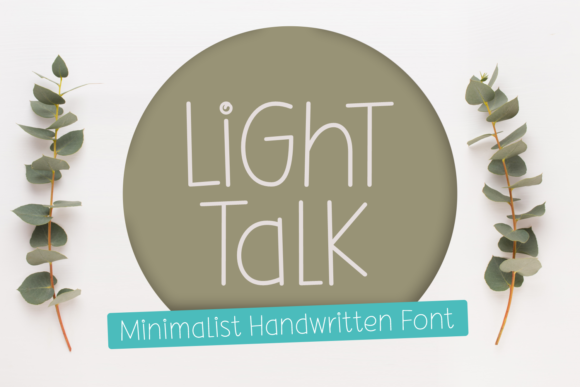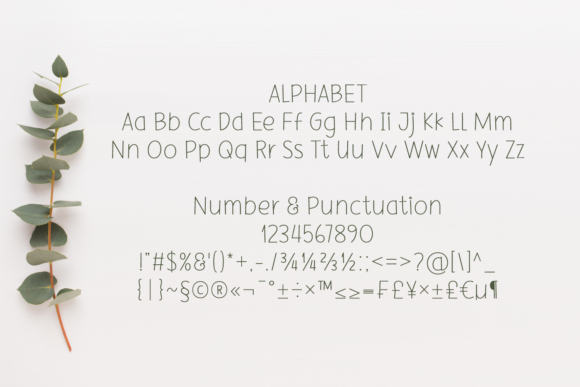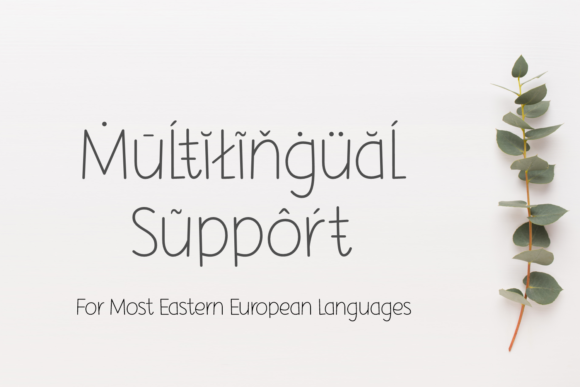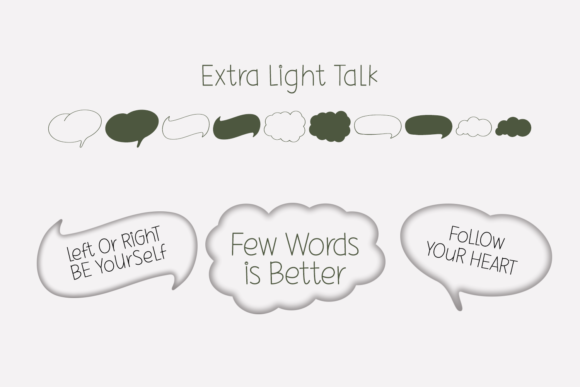
Light Talk Font
Light Talk is a minimalist and simple handwritten font. Thin and friendly, this font will have an incredibly cute and cozy impact on each of your designs.